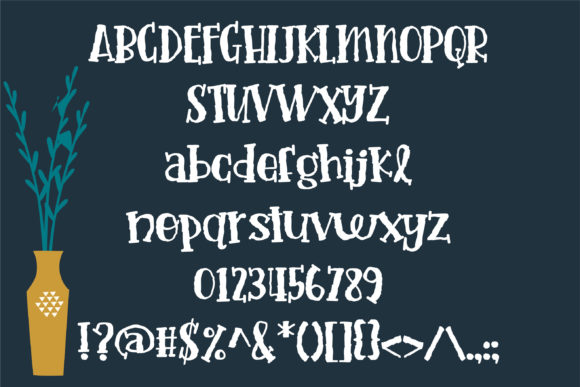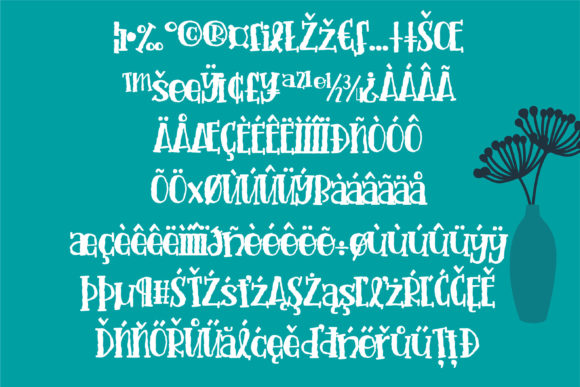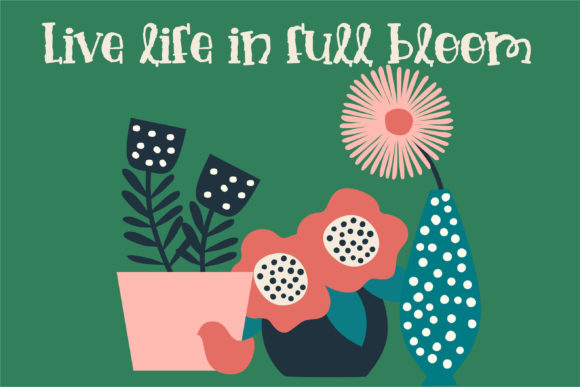
Introduction to Homestretch Font
As a designer, there’s nothing quite like the rush of finding the perfect font to elevate your creative project. Remember that one moment when you finally stumbled upon the ideal typography for your poster, and suddenly the entire design fell into place? For many designers, that moment is a recurring theme, and it’s exactly what we’re about to explore with the quirky and chic Homestretch Font.
With its unique blend of sophistication and playfulness, the Homestretch Font has the potential to transform any design, whether it’s a bold logo, a stylish website, or even a simple social media post. And the best part? This high-quality font is a valuable addition to any designer’s library, offering a free download with a transparent background that’s perfect for any creative project.
Honest Review: Homestretch Font
I recently had the opportunity to work with the Homestretch Font, and I must say it’s been a game-changer for my creative projects. This free download has been a valuable addition to my design resource arsenal.
- ✨ High-quality font with a unique and modern aesthetic.
- ✨ Easy to customize with transparent background options.
- ✨ Perfect for digital projects, from logos to social media graphics.
However, I did encounter some limitations while using the Homestretch Font.
- ⚠️ Limited character set, which may not be ideal for longer texts.
- ⚠️ Not suitable for print projects, as it may not translate well to physical media.
Overall, I’m impressed with the Homestretch Font. Its modern design and high-quality feel make it a great choice for digital projects. While it may have some limitations, I believe it’s a valuable resource for designers looking for a unique and creative font.
Tips for Getting the Most Out of the Homestretch Font